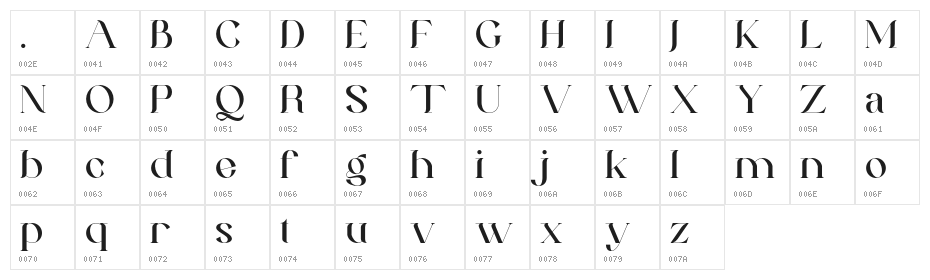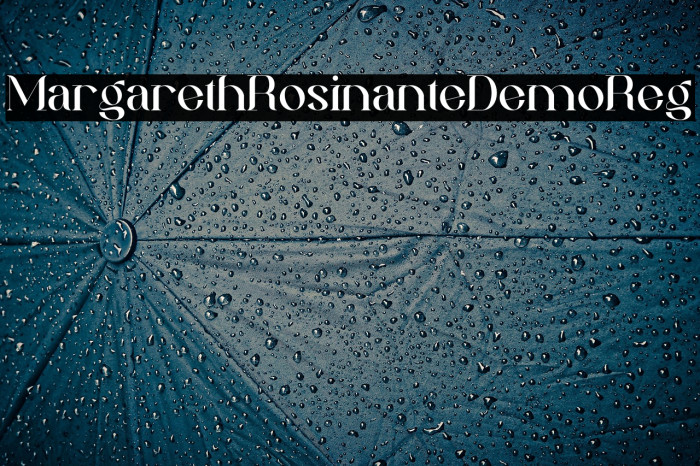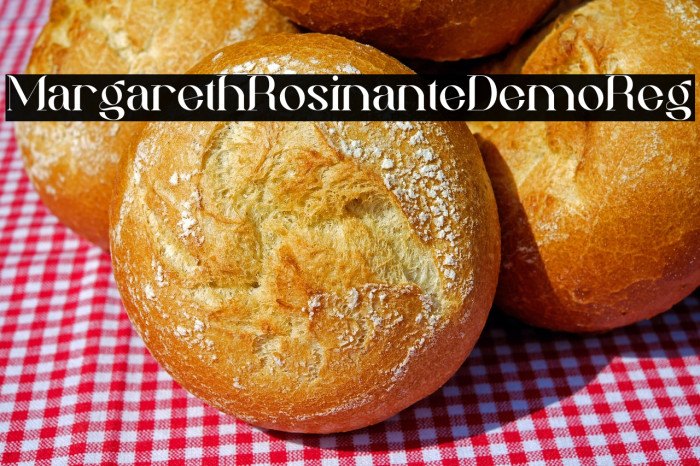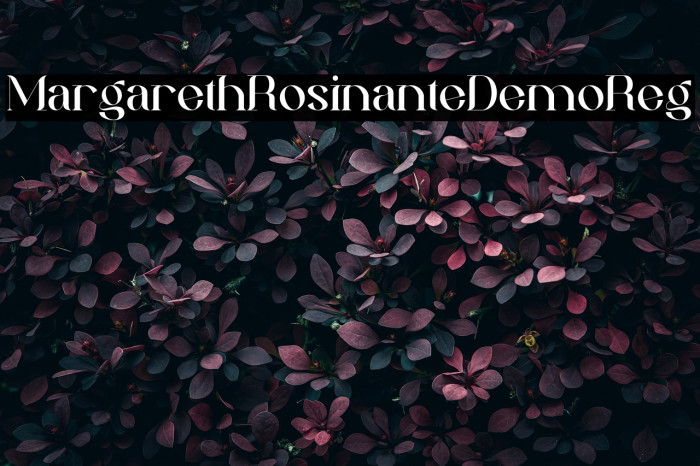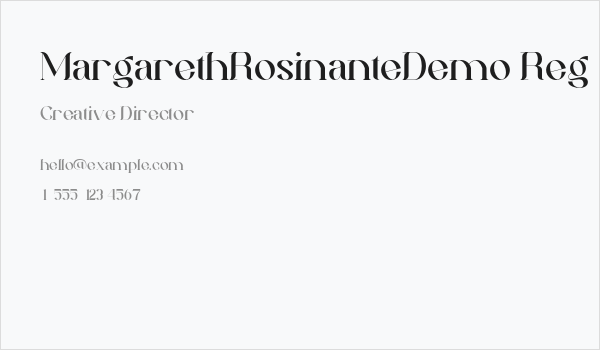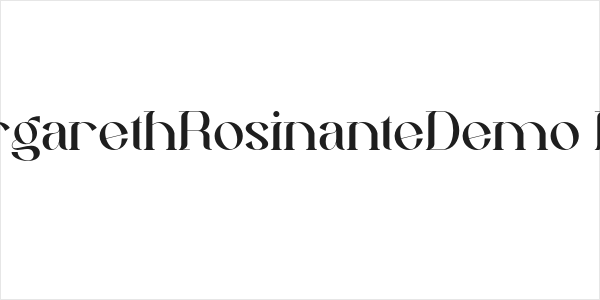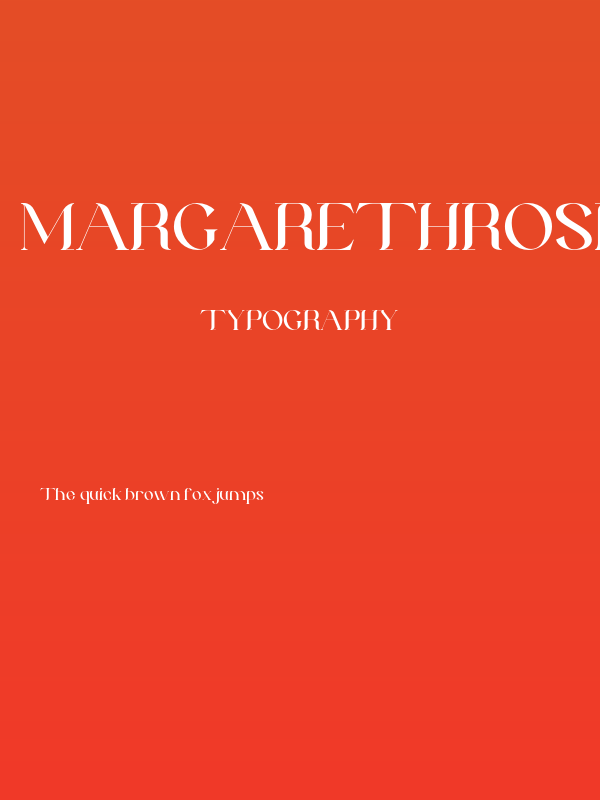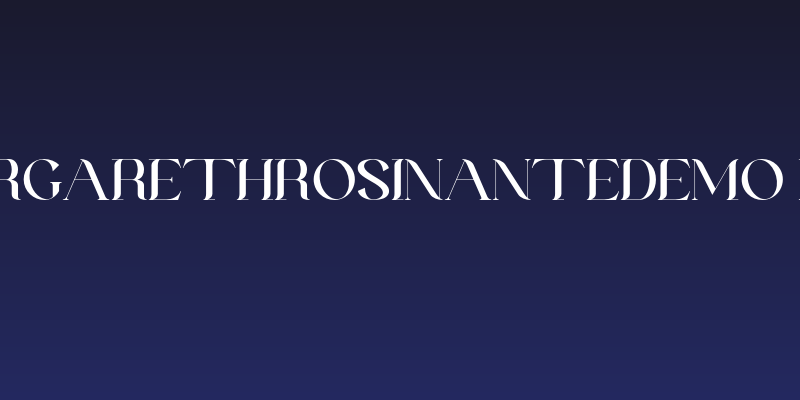
MargarethRosinanteDemo-Reg Font
MargarethRosinanteDemo-Reg Description
This font features a sophisticated and elegant design, characterized by its high contrast between thick and thin strokes. The uppercase letters exhibit a refined and modern aesthetic, with sharp serifs and a slightly condensed form that adds to its stylish appearance. The lowercase letters maintain a harmonious balance, offering a smooth and flowing look that complements the uppercase set. The numerals are distinct and bold, ensuring clear readability. Overall, this font exudes a sense of luxury and modernity, making it suitable for high-end branding and editorial design.
| Proposed Projects | Ideal for luxury branding, editorial design, fashion magazines, and upscale packaging. |